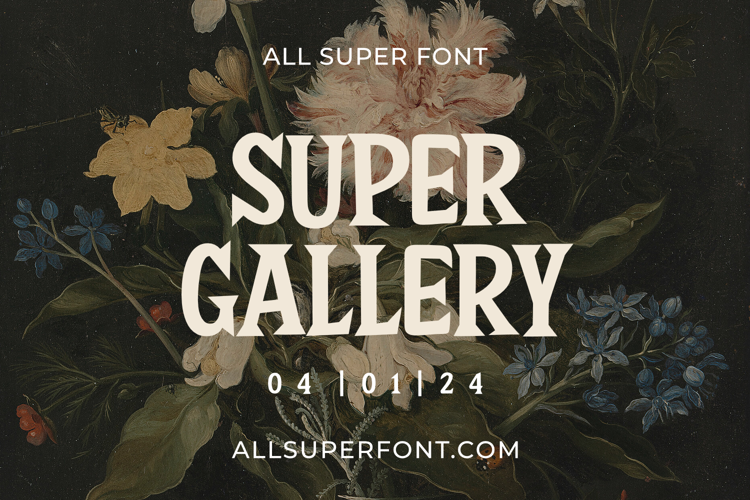
Super Gallery Font
About Super Gallery Font
Super Gallery: Where Playful Meets Sharp
Super Gallery is a font that bursts with personality, perfect for adding a touch of fun and whimsy to your designs.